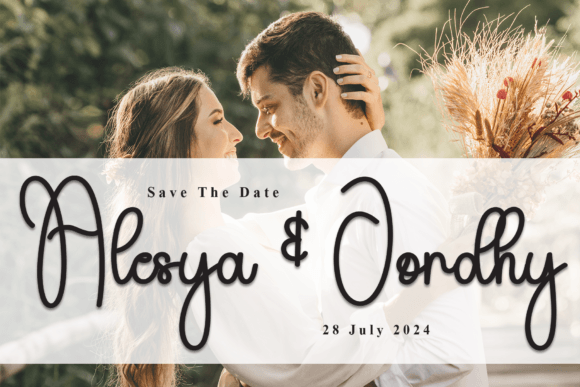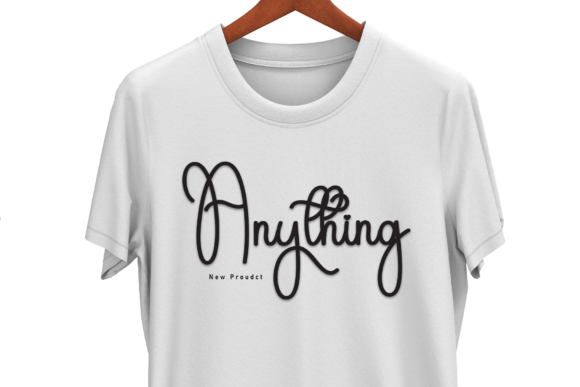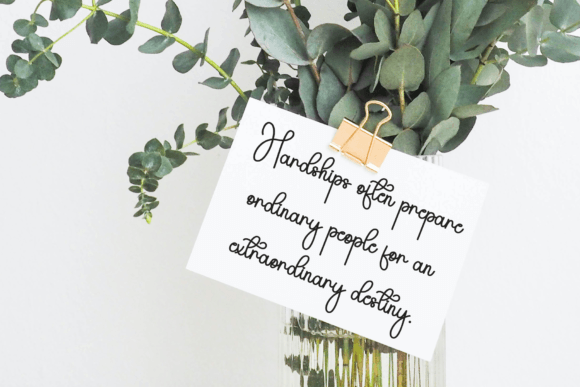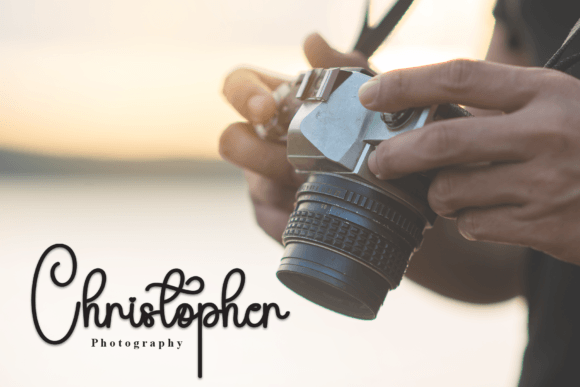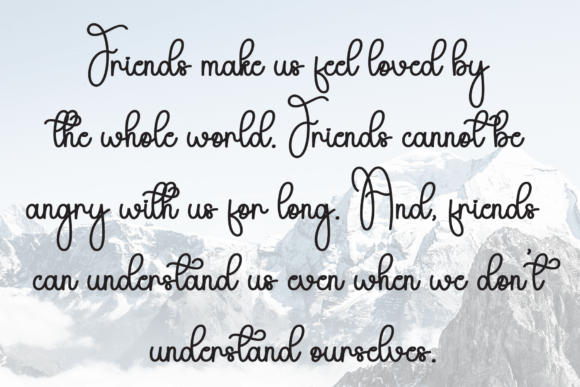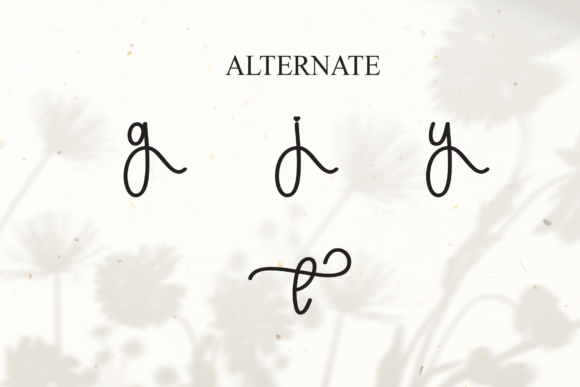
Unlock Your Creativity with the Delightful Font
Have you ever found yourself sitting in front of a blank page or screen, struggling to bring your creative idea to life? We’ve all been there – the blank slate staring back at us, waiting for a spark of inspiration to ignite our imagination. But what if we told you that the perfect spark is just a font away?
Introducing Delightful Font, a magical script font that combines elegance and sophistication to turn any creative idea into a stunning work of art. Whether you’re designing graphics for Instagram, crafting calligraphy scripts for DIY projects, or simply looking for a unique touch to elevate your designs, Delightful Font is the perfect tool to help you achieve your creative vision. As a designer, you know how valuable the right font can be in setting the tone and mood of your work – and Delightful Font is sure to delight your clients and inspire your creativity.
Delightful Font Key Features
- Unique Characteristics: Delightful Font features a unique blend of modern and elegant design elements, with subtle flourishes and decorative details that add a touch of sophistication to any text.
- Kerning and Ligatures: Delightful Font includes advanced kerning and ligature features, ensuring that text is displayed with precise spacing and harmony, even in complex layouts.
Delightful Font Review
Overall, I’m quite pleased with Delightful Font. It’s a beautiful addition to any design project. ✨ The font’s playful and elegant style makes it perfect for projects that require a touch of whimsy.
Here are some of the things I love about Delightful Font:
- ✨ Unique character set: Delightful Font comes with a wide range of characters, including ligatures, swashes, and flourishes. This makes it perfect for designers who want to add a touch of personality to their projects.
- ✨ High-quality design: The font is designed with precision and attention to detail. Every letterform is meticulously crafted to ensure that it looks its best at any size.
- ✨ Versatile: Delightful Font is suitable for a wide range of projects, from logos and branding to packaging and editorial design.
- ⚠️ Limited language support: Delightful Font is primarily designed for Latin-based languages. If you need to support languages like Chinese, Japanese, or Arabic, you may want to consider a different font.
- ⚠️ Not ideal for small text: While Delightful Font looks great at larger sizes, it can become difficult to read at smaller sizes. Be sure to test it out before using it in projects where text size is critical.
Overall, I think Delightful Font is a great addition to any designer’s toolkit. While it may have a few limitations, its unique style and high-quality design make it a standout choice for many projects.
Getting the Most Out of Delightful Font
For optimal results, use Delightful Font in combination with other design elements, such as colors and graphics.
Consider using Delightful Font for headings and titles to create a clear hierarchy of information.
Delightful Font is ideal for:
Creating eye-catching headings and titles.
Adding a touch of elegance to